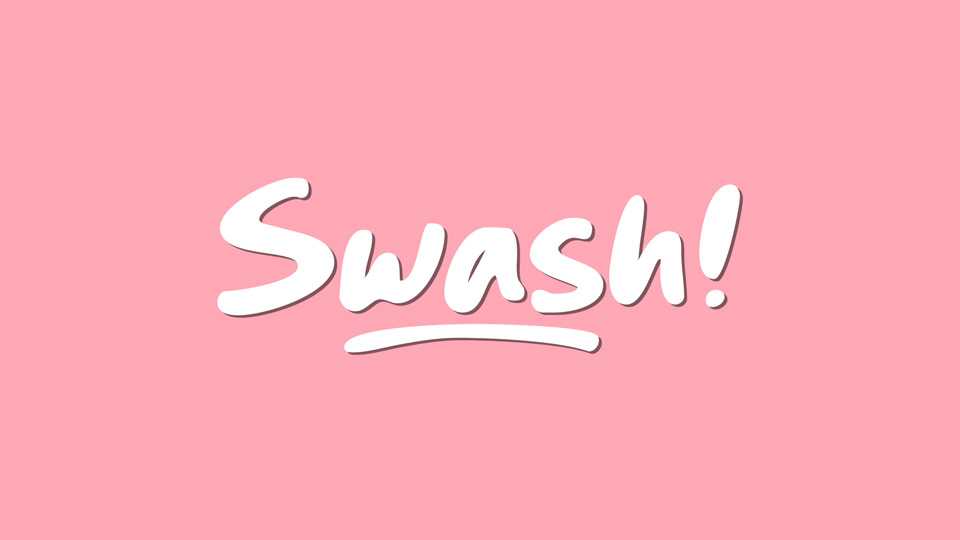
Download Swash font, a effortlessly casual and comic-inspired handwritten font that brings a playful twist to your designs. Swash font boasts a relaxed and fluid design, with each letter exuding a sense of lightheartedness and fun.